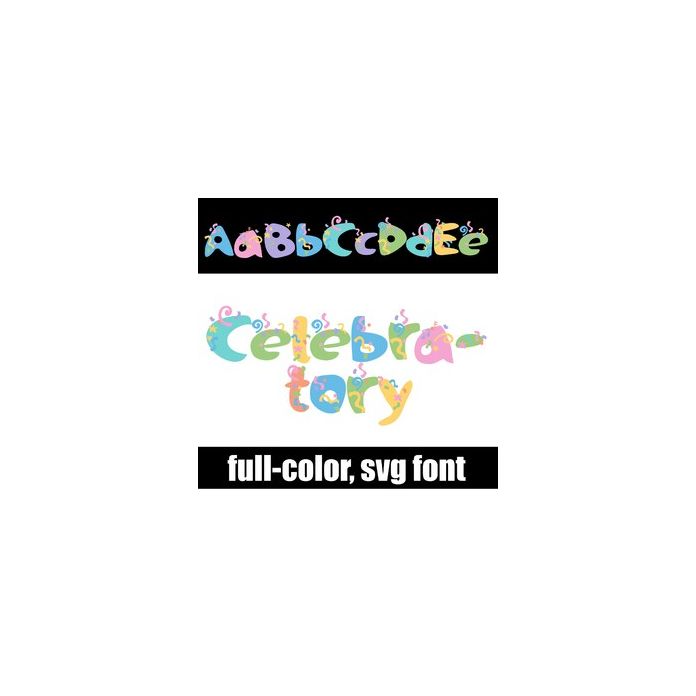
This full-color font features pastel colored lettering with confetti throughout. This font works best for titles, displays, posters and more. Please note color fonts will show as black in non compatible programs. This font type is compatible with Silhouette Studio.